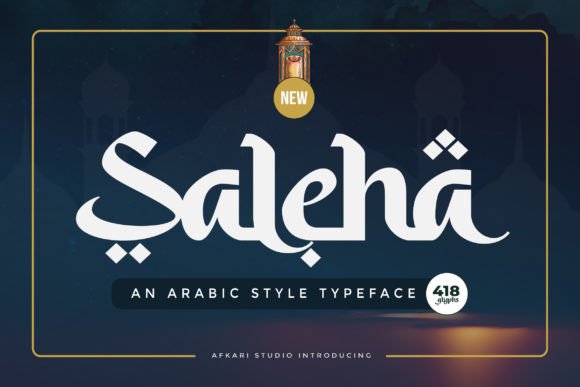
Introducing Saleha Font, the best font for small display and perfect for all your Islamic or Arabic-style graphic design needs! Created by afkaristudio, Saleha is an Arabic-styled display typeface that exudes elegance and sophistication.
Looking to add a touch of authenticity to your next design project? Look no further than Saleha Font! With its intricate and beautifully crafted Arabic characters, this font will transport your audience to the heart of the Middle East with every stroke.
Whether you're designing for Ramadan, Eid, or simply looking to add a touch of cultural flair to your work, Saleha Font has you covered. With its timeless and versatile design, this font is perfect for all your small display needs.